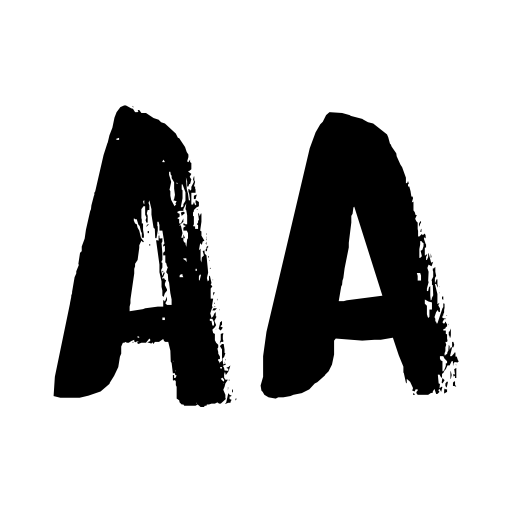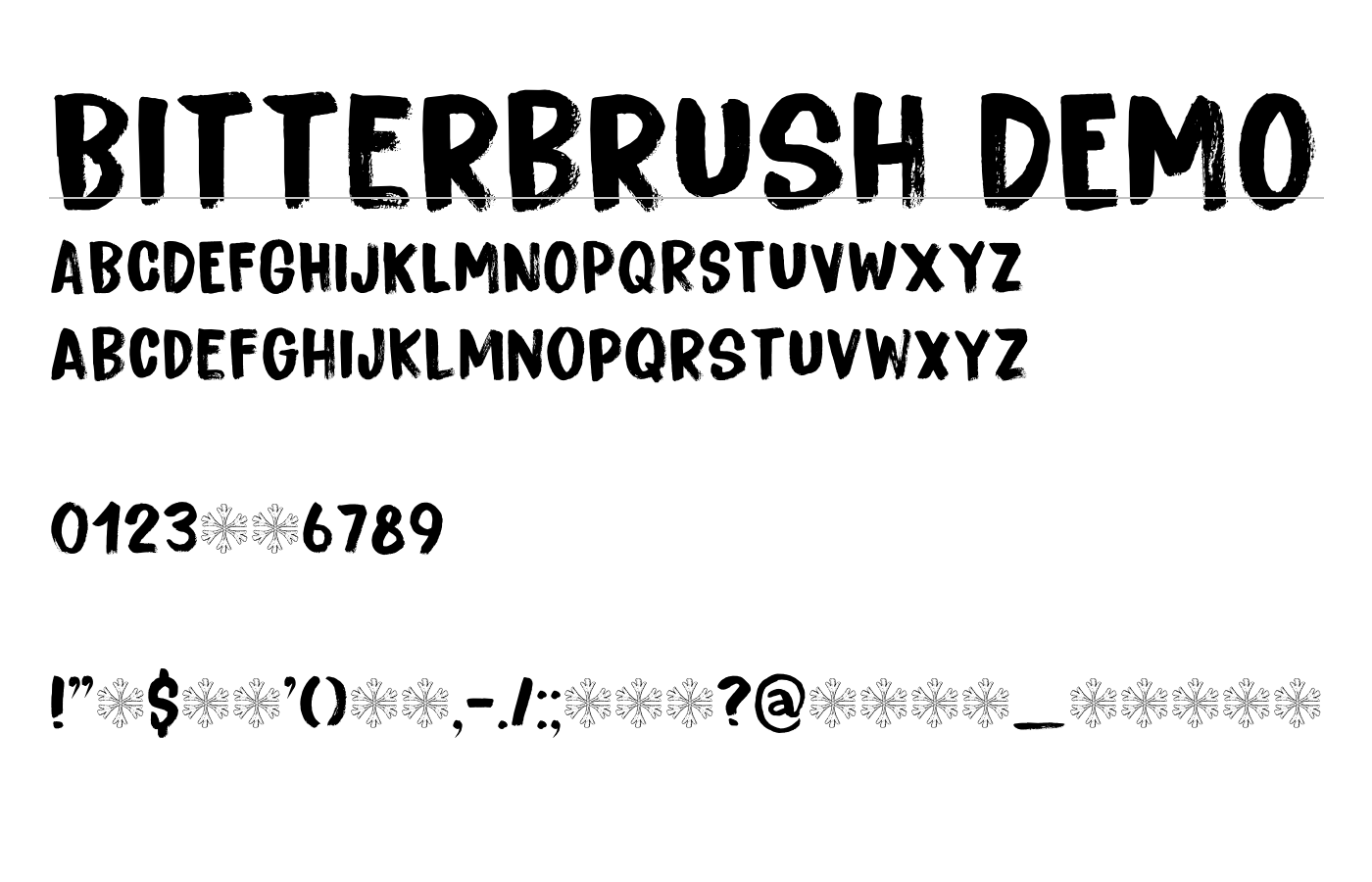
Bitterbrush DEMO is a bold, hand-painted sans serif font featuring rough, textured strokes that give it an organic and lively feel. Its tall, narrow letterforms with uneven edges evoke a raw, artistic vibe, making it perfect for creative, casual designs that need a touch of personality and energy. This font works well in posters, branding, and loud headlines where a handmade, expressive style stands out.
Bitterbrush DEMO Font
About Bitterbrush DEMO Font